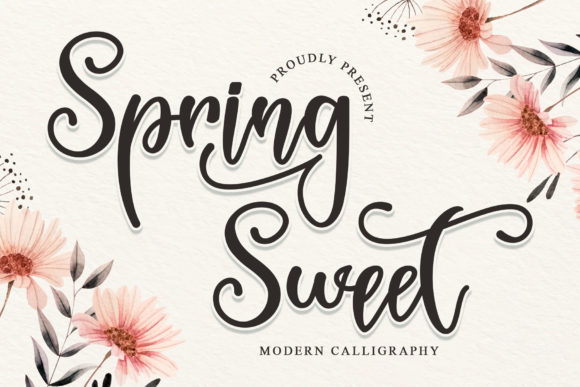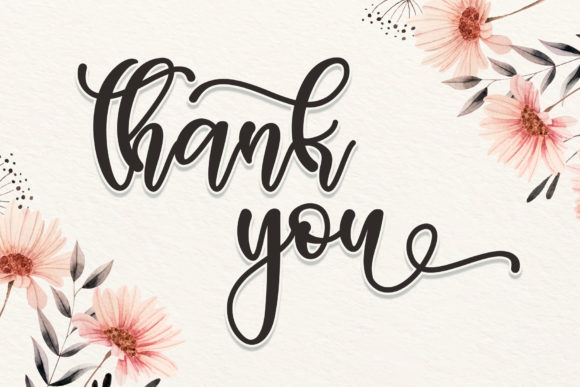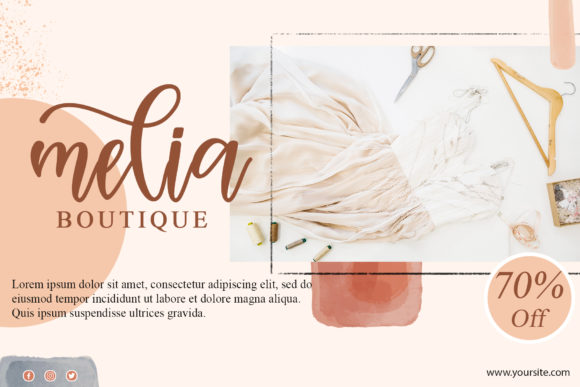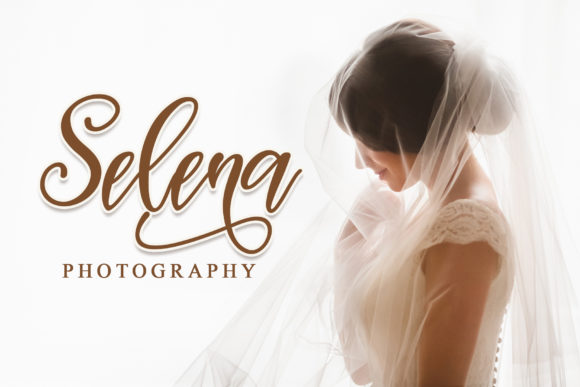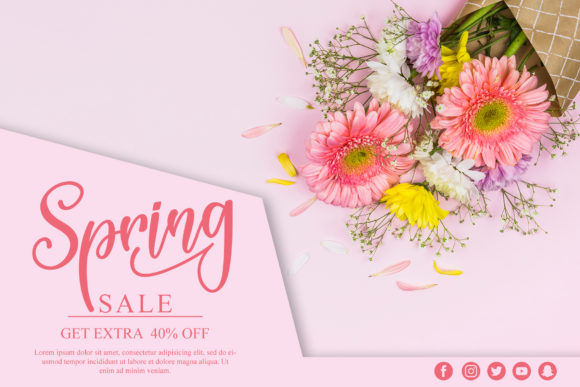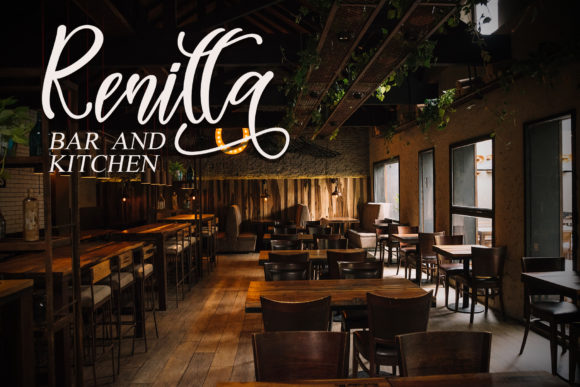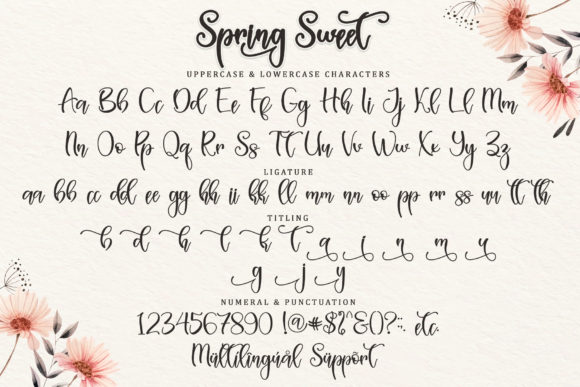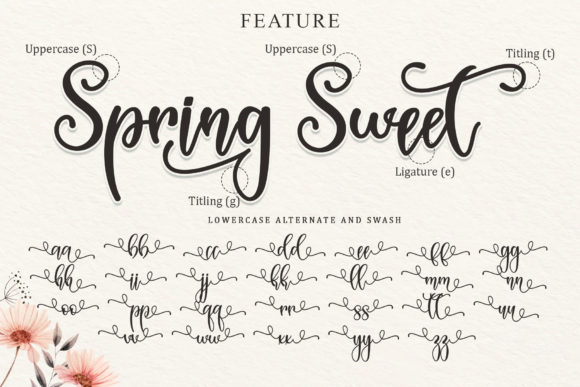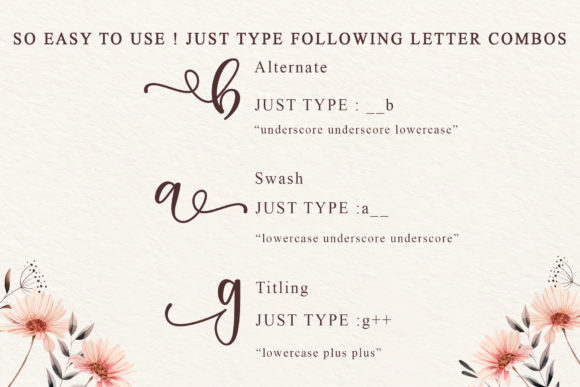
Spring Sweet Font
About Spring Sweet Font
Spring Sweet is a modern calligraphy font created especially for Spring.
Spring Sweet is great for unique branding, photo overlays, watermarks, greeting cards, posters, business cards, invitations, weddings, photography, fashion, clothing, letters, stationery, etc.
A wide variety of swashes (a-z), alternate (a-z), ligatures, and multilingual support are included so you can give your logo or name a hand calligraphic look.